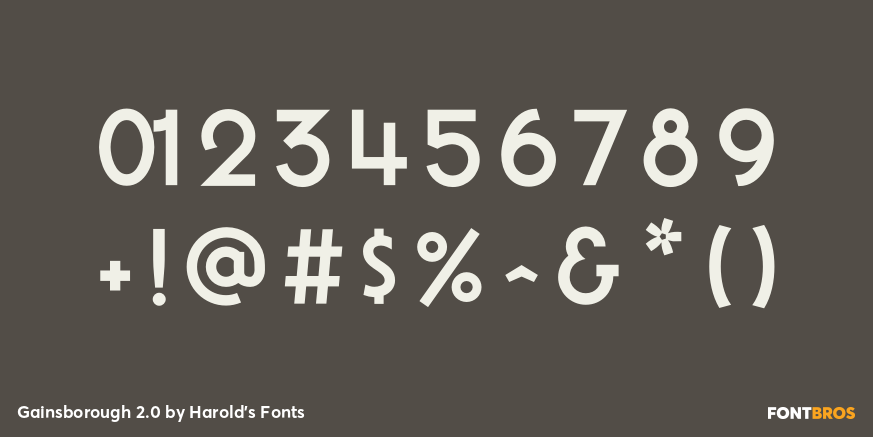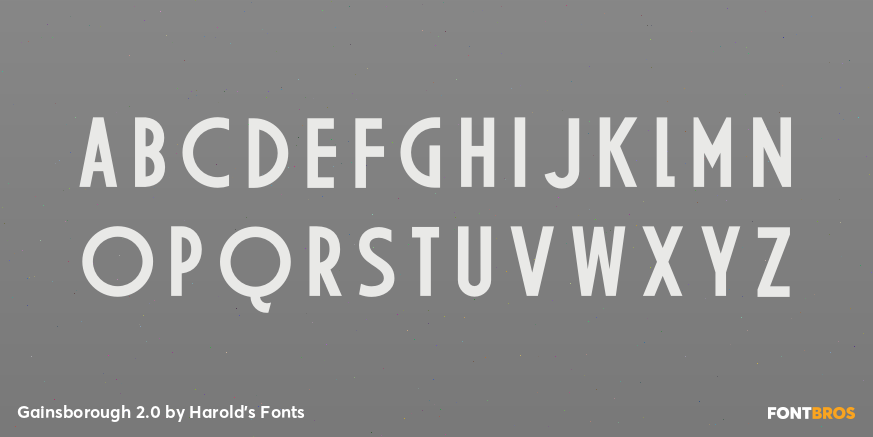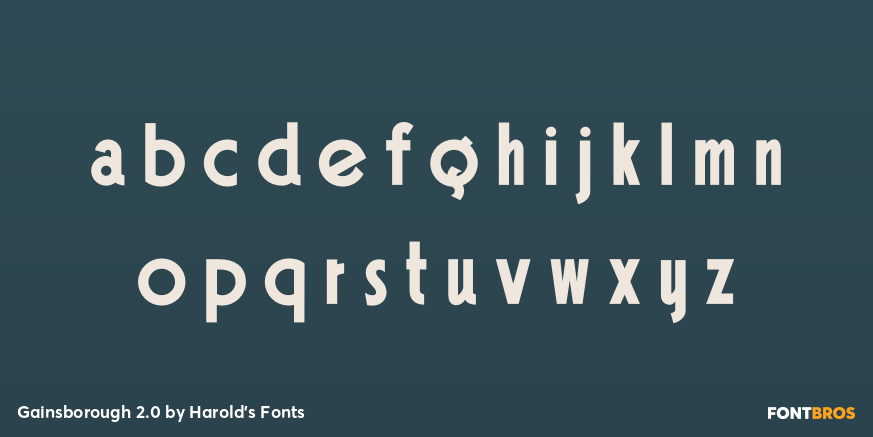
Gainsborough 2.0
Font Family by Harold's Fonts
GAINSBOROUGH is a bold geometric font in a high Art Deco style. I was attracted to the extreme distortion in some of the letters, emblematic of the style, and preserved that in my design. Gainsborough was inspired by the hand-lettered titles of the 1938 Alfred Hitchcock film, The Lady Vanishes, "A Gainsborough Picture," produced by a sister company of Gaumont-British, namesake of Gaumont, which inspired another deco font set